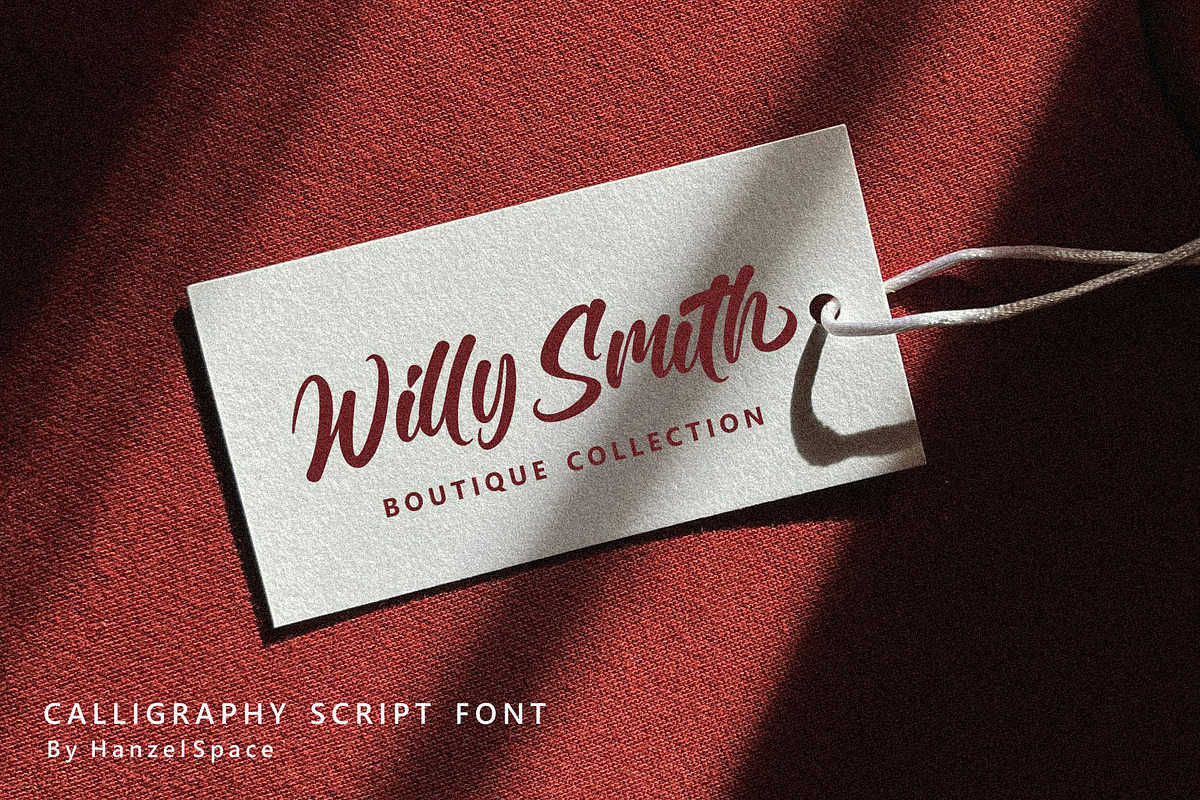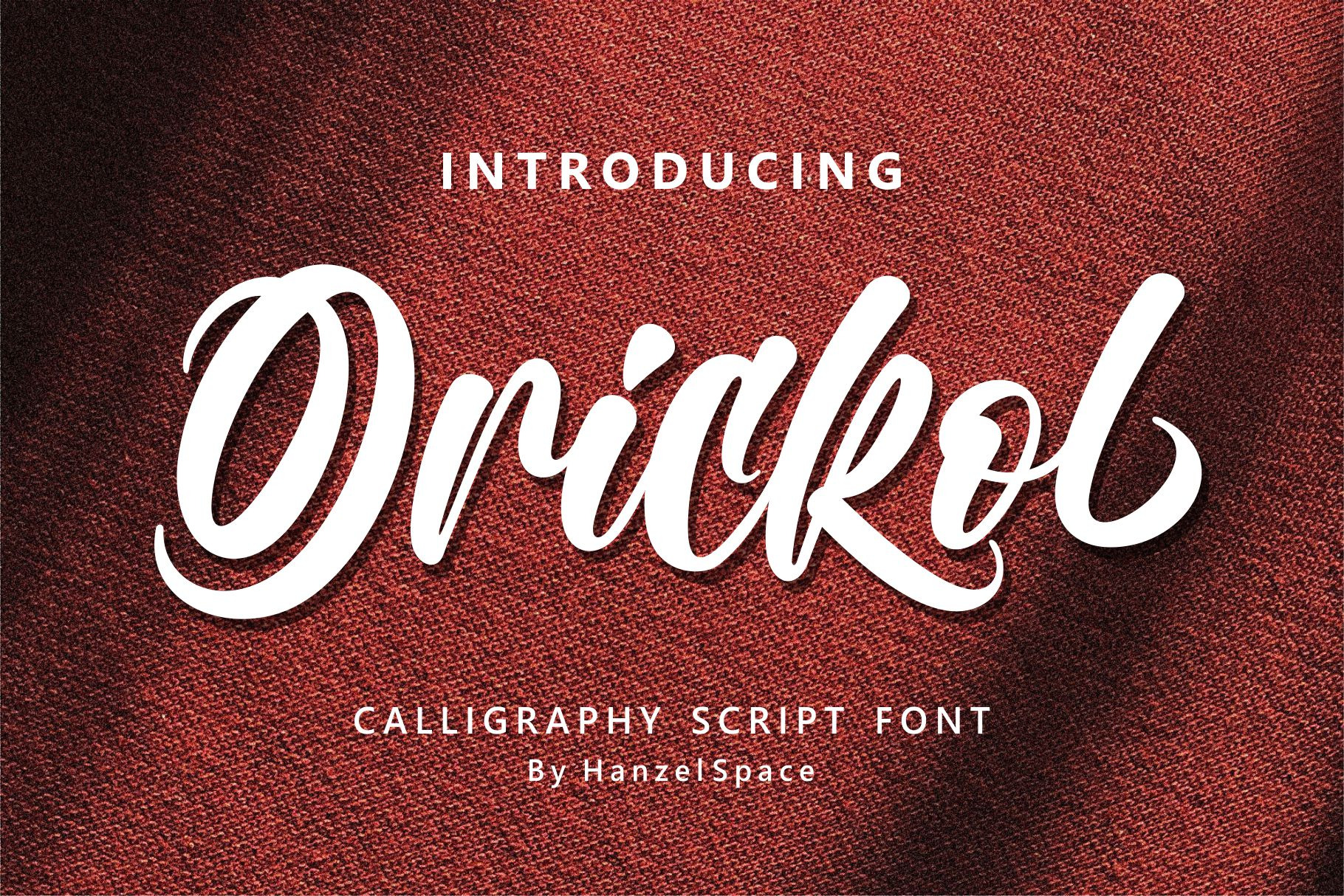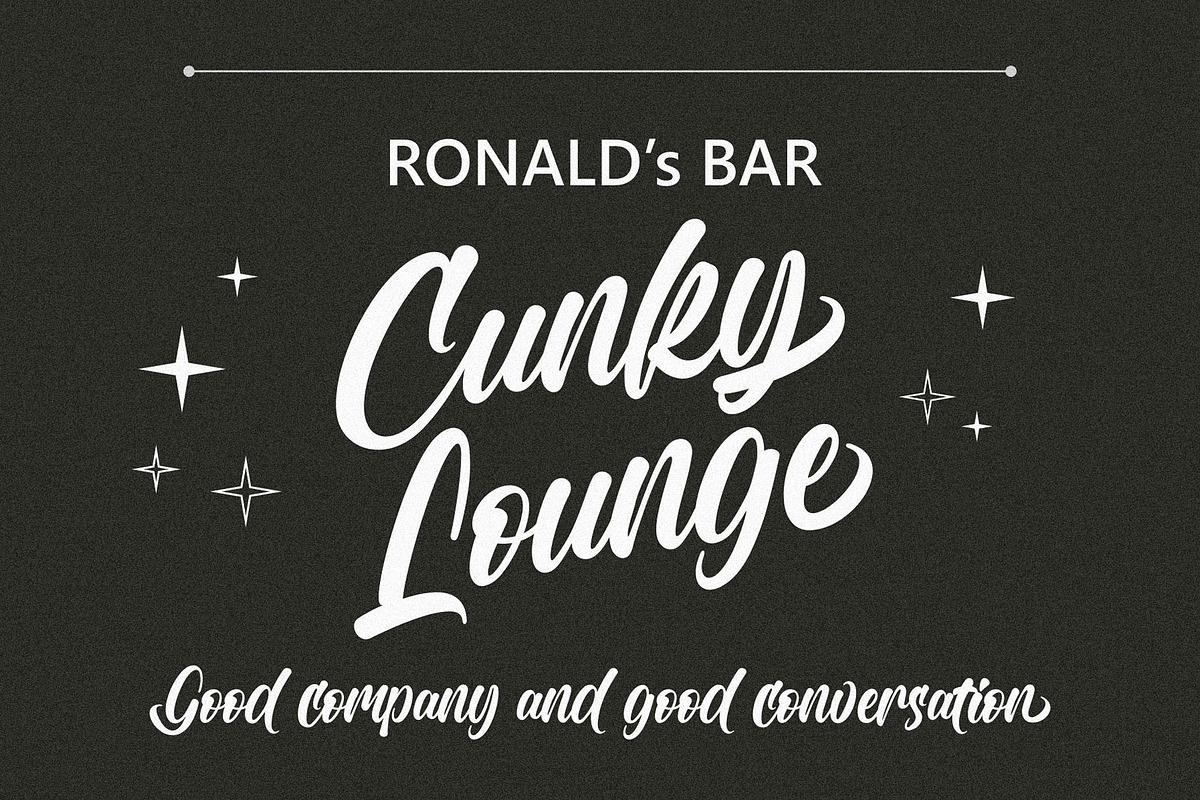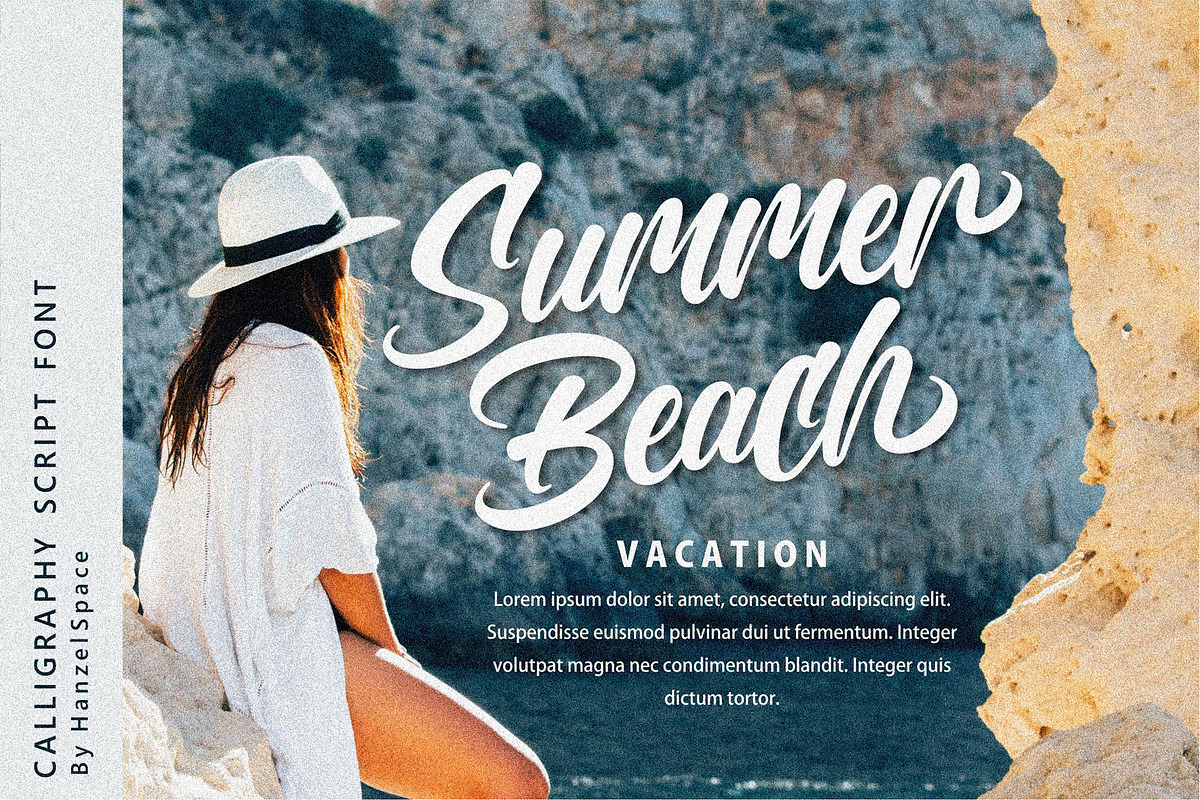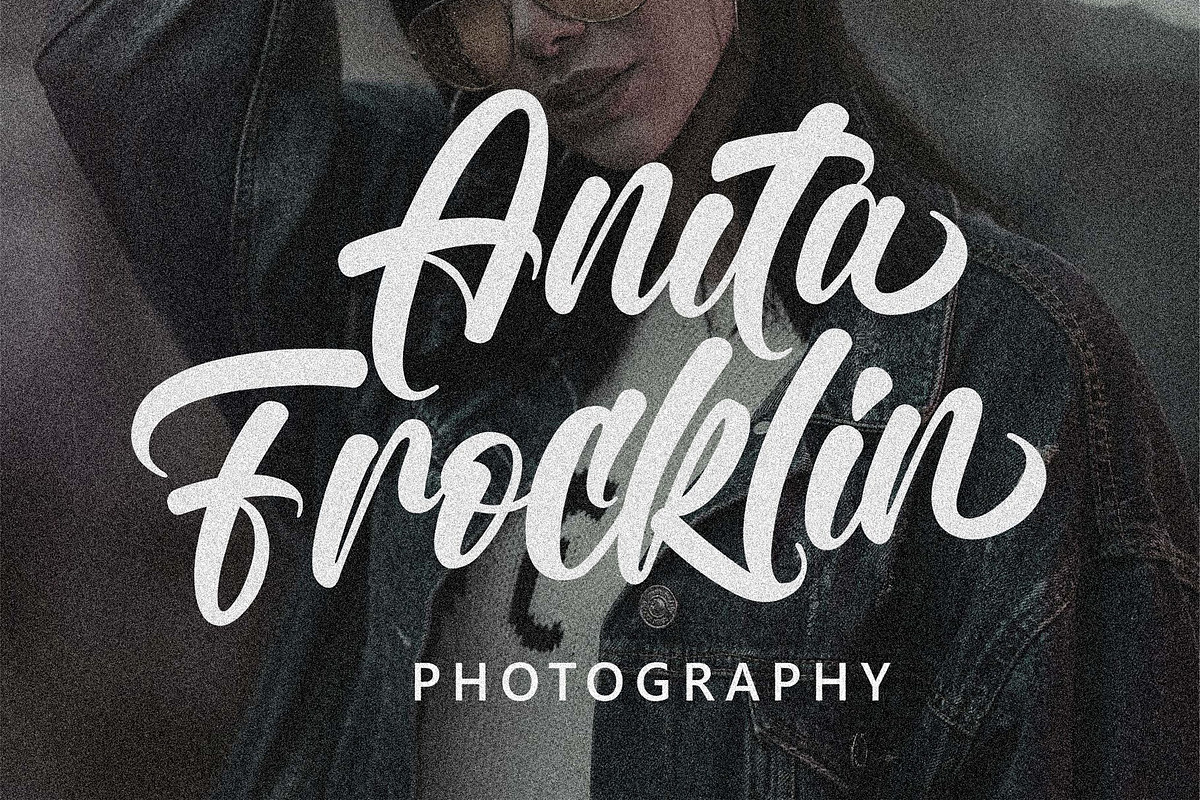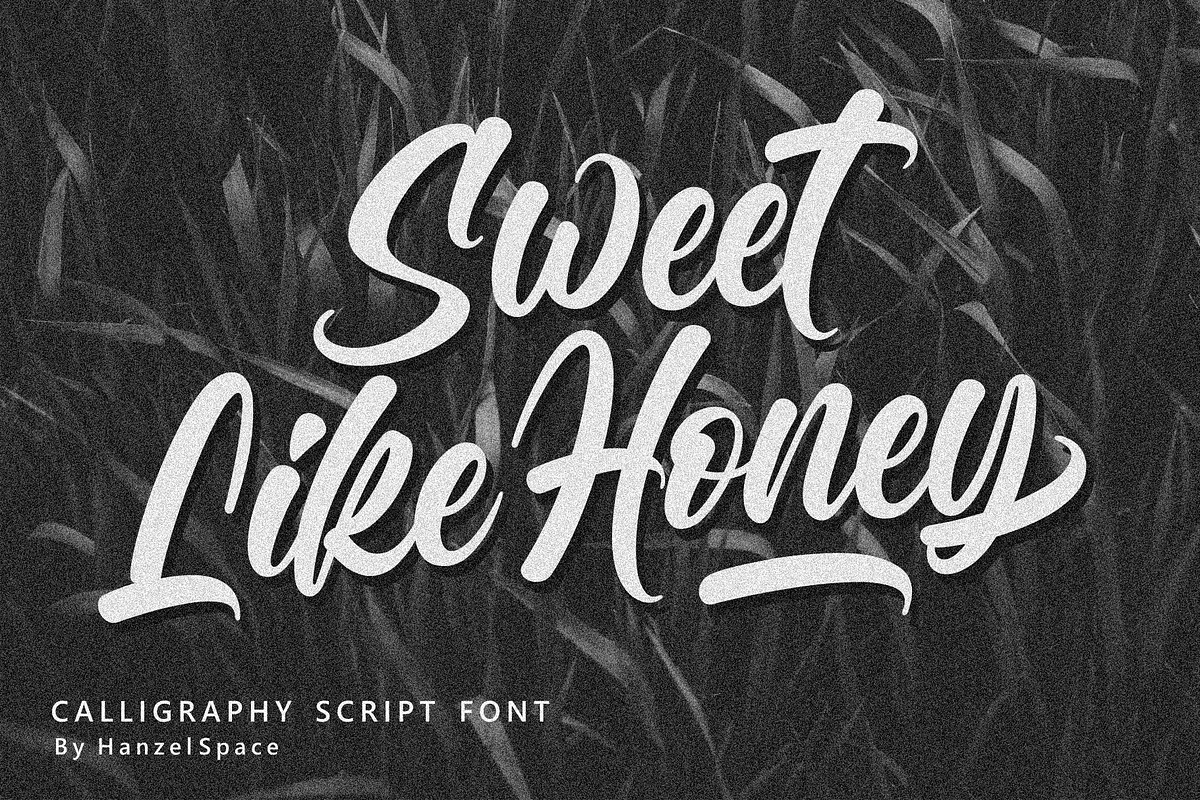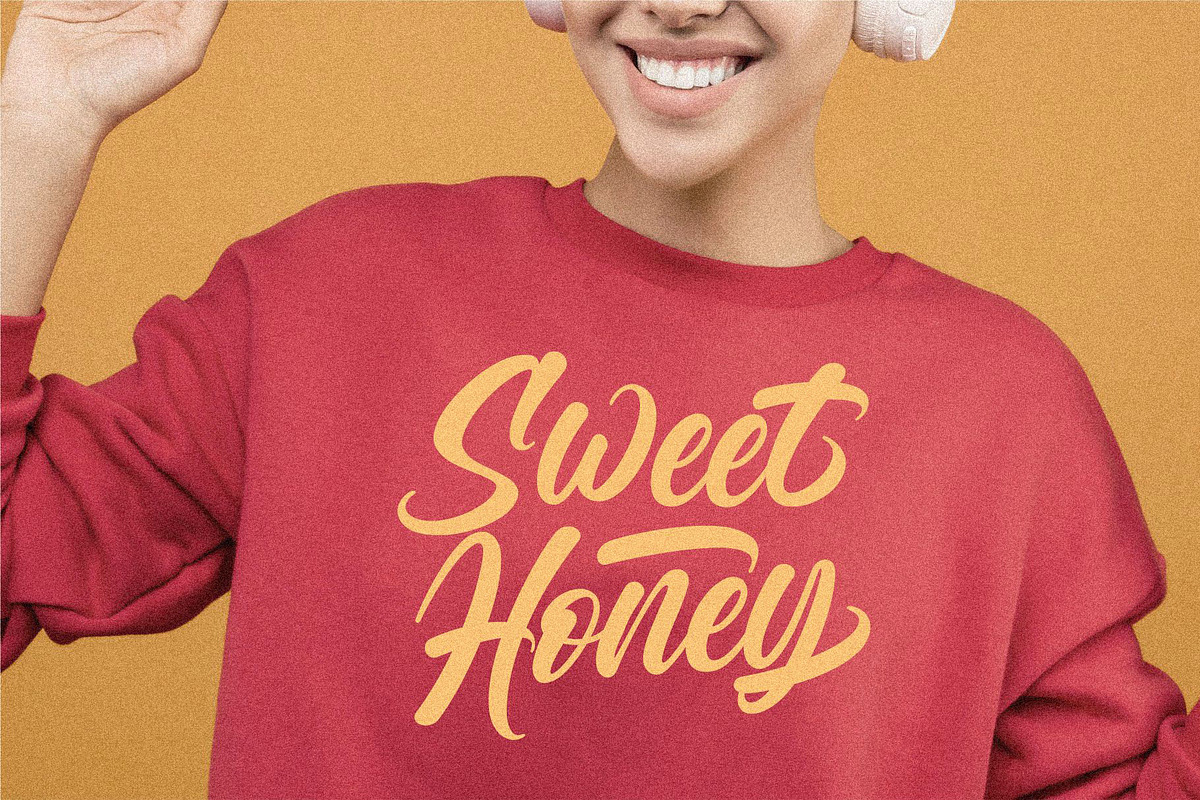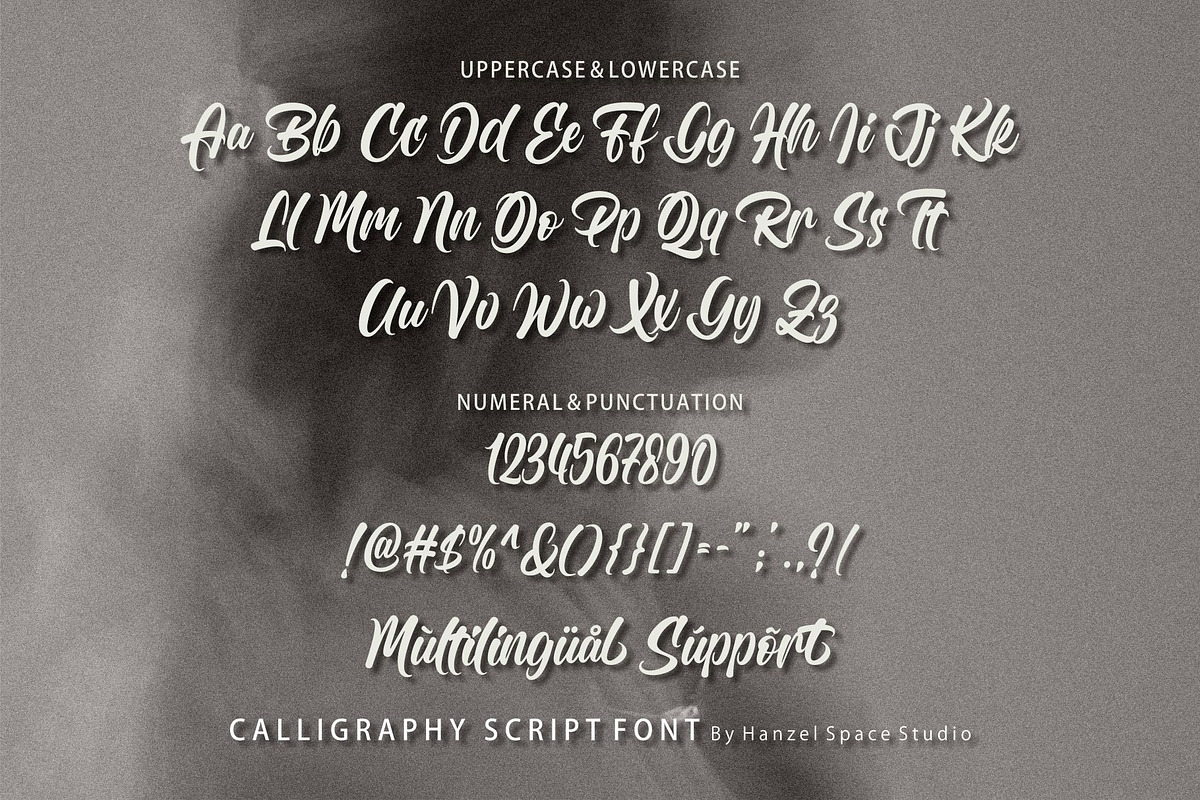
Orickol - Calligraphy Script Font
Orickol – Calligraphy Script Font This font is designed naturally and very smoothly so it has a unique character. With its strong character and refined style in each letter, this typeface brings a flexible touch to any design, from logos, and the other various formal forms such as invitations, labels, logos, magazines, books, greeting / wedding cards, packaging, fashion, make up, stationery, novels, labels or any type of advertising purpose.
Multilanguage Supports
Swash